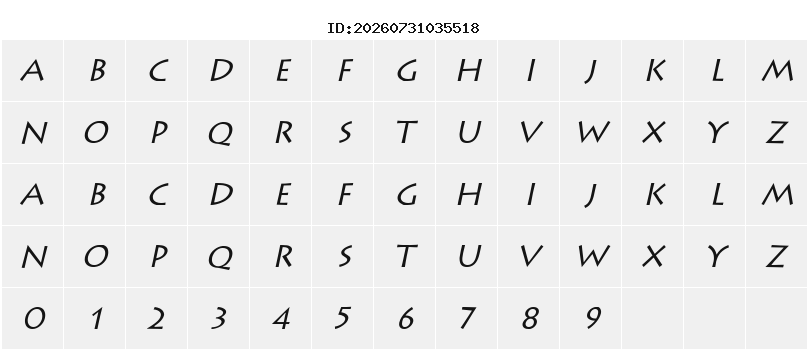
Liste Preview
• Font Name: Liste
• Full Font Name: Liste Italic
• PostScript Name: ListeItalic
About Liste.ttf
Liste.ttf is a modern, elegant sans-serif font designed for ultimate readability and visual harmony. Perfect for branding, headlines, web design, and print materials.